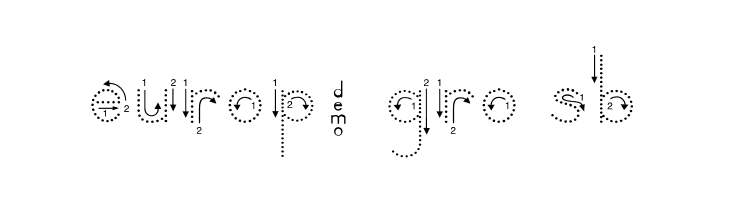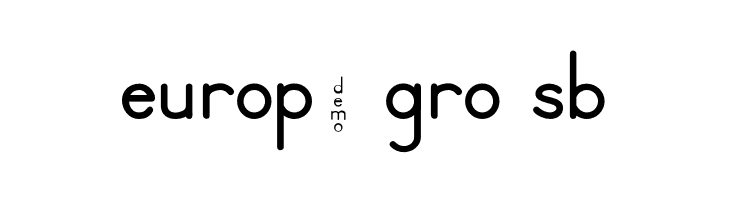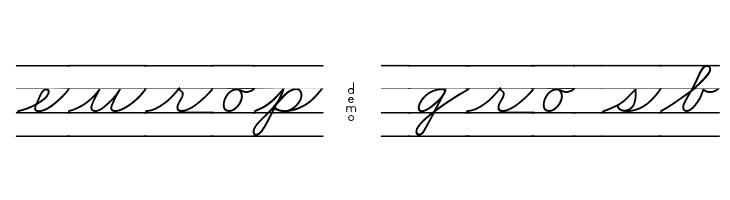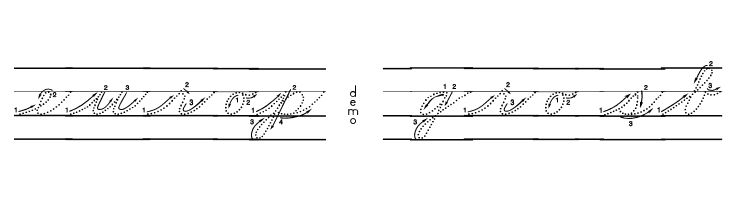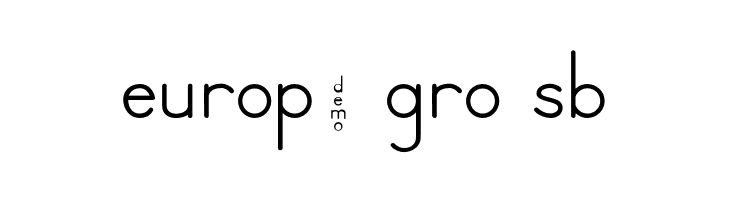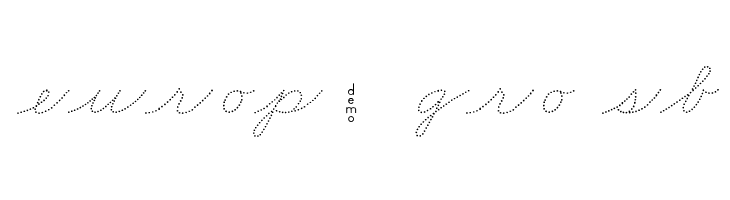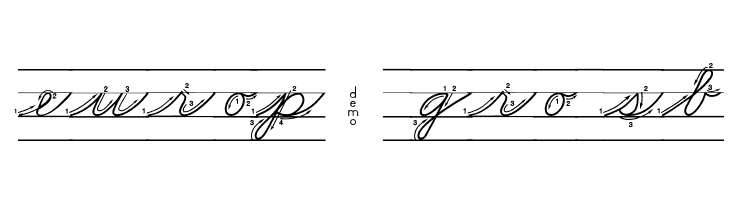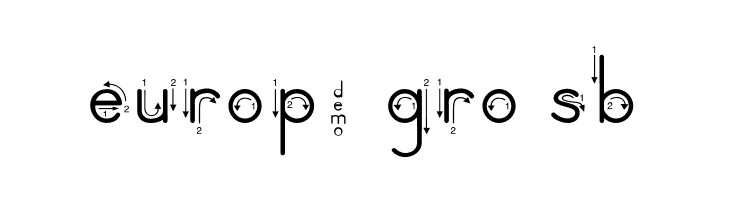
Cursive educational font with dotted lines and directional guides.
A graceful cursive font with fluid connections and elegant curves.
A dotted cursive font with a playful and elegant style.
A dotted cursive font designed for handwriting practice.
A graceful cursive font with smooth, flowing lines and connected letters.
A modern, rounded font with bold, clean lines and balanced spacing.
A clean, geometric sans-serif font with a modern and approachable style.
A playful font with arrows integrated into each character, offering a modern and dynamic style.
An educational font with dotted lines and arrows for teaching handwriting.
A dotted line instructional font for handwriting practice with stroke guides.